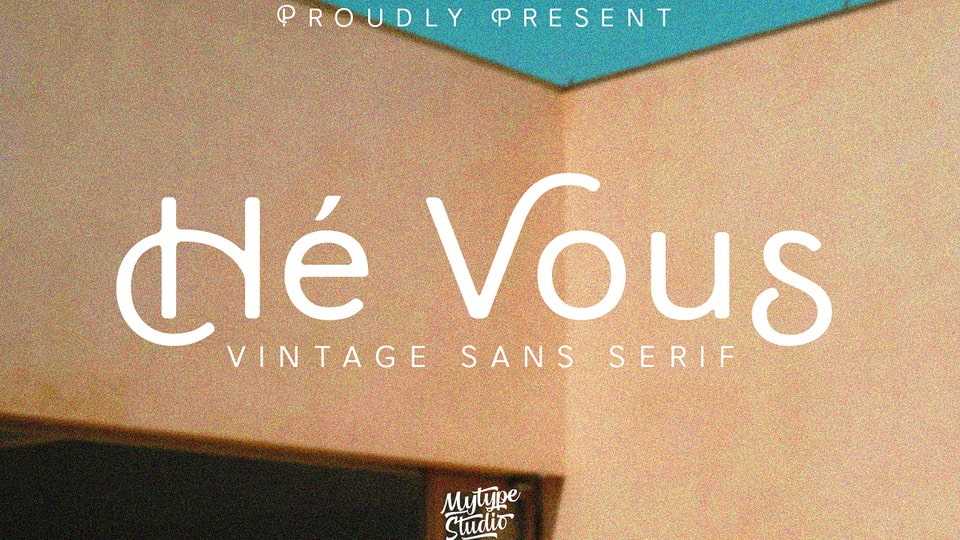
Download Hé Vous font, a distinctive vintage sans serif typeface, designed to evoke a sense of nostalgia while maintaining a modern, clean aesthetic.
Designer: Mytype Studio